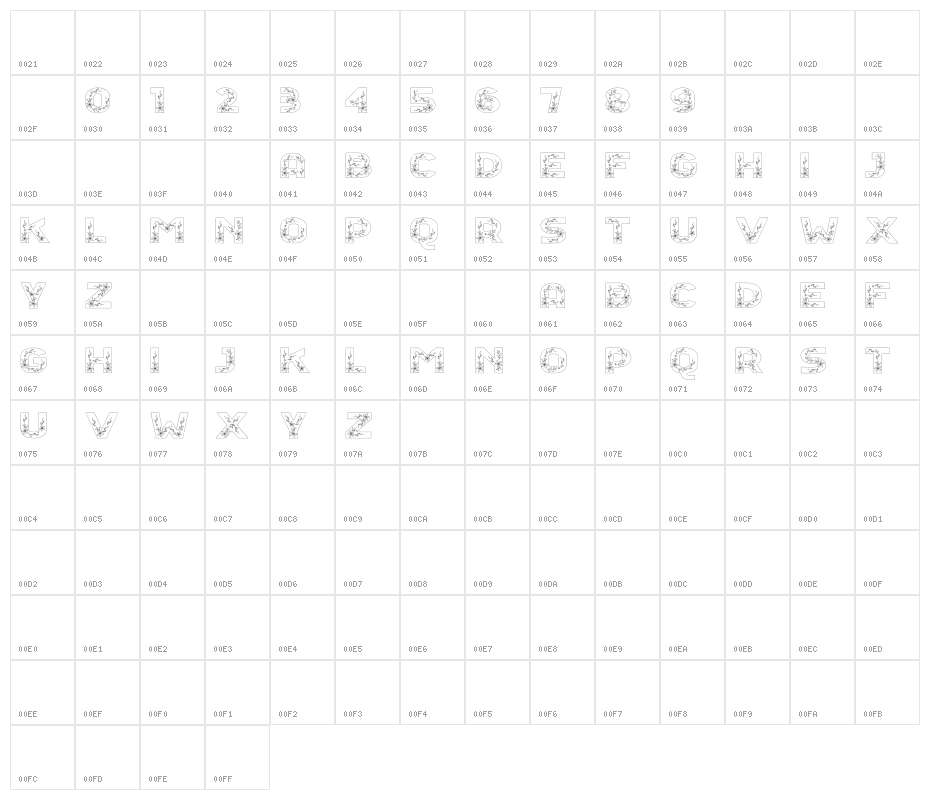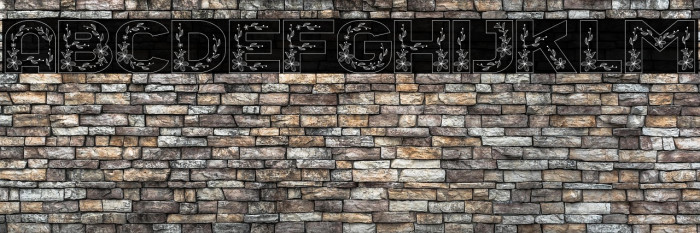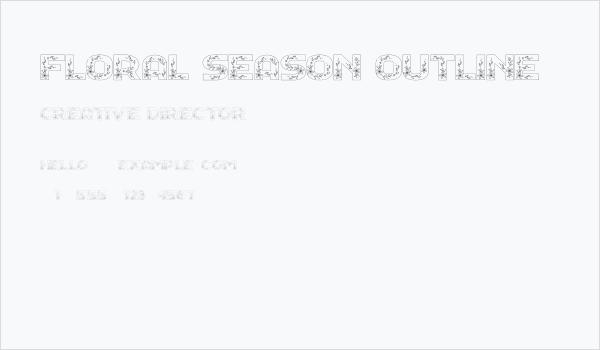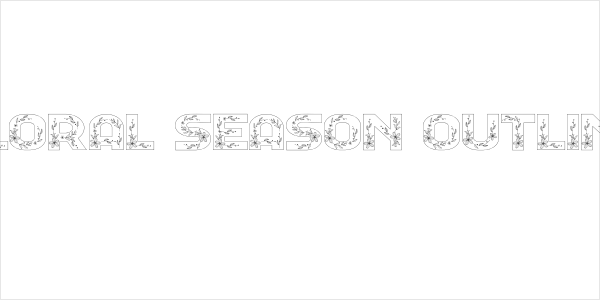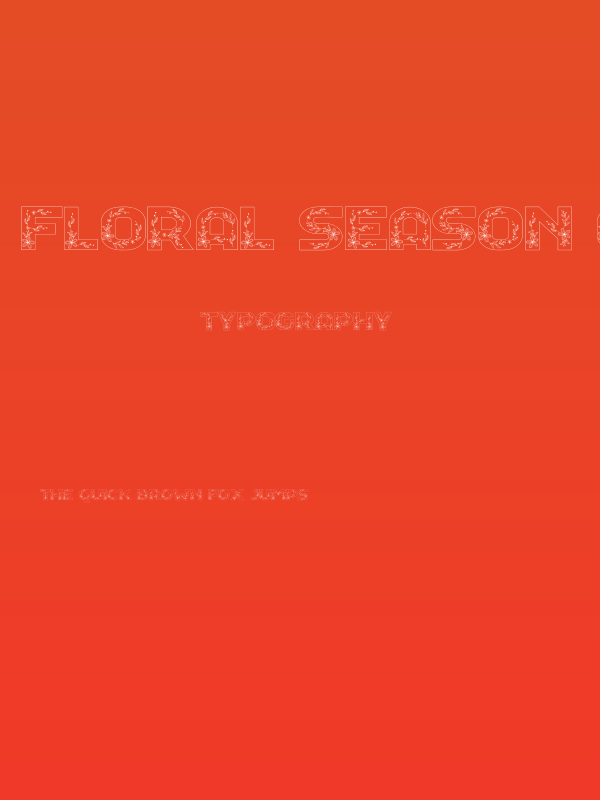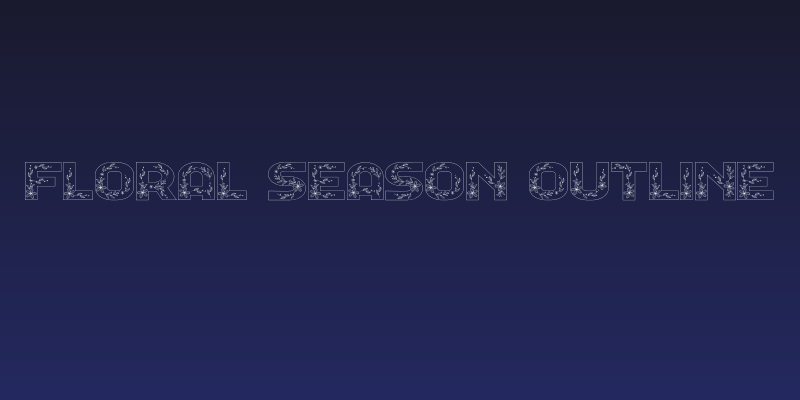
Floral Season Outline Font
Floral Season Outline Description
This font features a unique and decorative style with floral elements intricately woven into the outline of each character. The uppercase and lowercase letters, as well as numbers, are adorned with delicate floral patterns that give a sense of elegance and nature-inspired beauty. The design is consistent across all characters, maintaining a cohesive look that is both artistic and visually appealing. The floral motifs add a touch of whimsy and charm, making it ideal for projects that require a creative and organic feel. The outline style allows for versatility in color application, enhancing its decorative appeal.
| Proposed Projects | Ideal for wedding invitations, greeting cards, nature-themed branding, and artistic posters. |